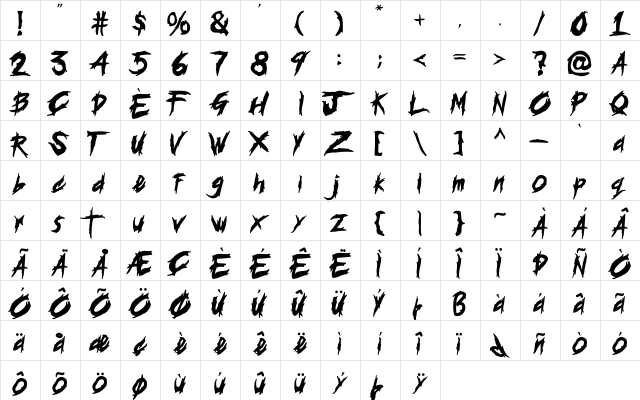
HisteriA Regular
| Foundry | Arendxstudio |
| Designer | Arendxstudio |
Design Context for HisteriA Typeface
HisteriA is a composed and adaptable typeface that performs quietly and consistently across a wide range of design contexts.